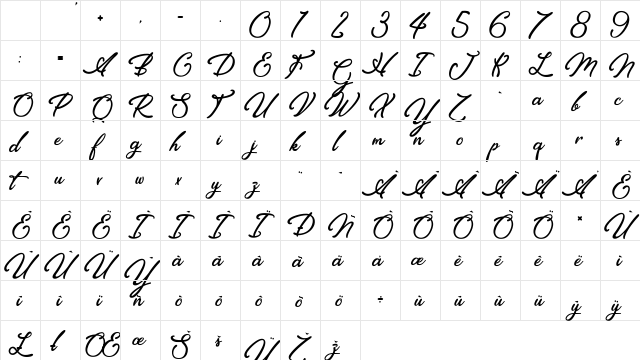
Complete Elegancia Romantica Regular glyph index. Displaying only characters natively supported by Elegancia Romantica Regular font.
Elegancia Romantica is a composed and adaptable typeface that performs quietly and consistently across a wide range of design contexts.
Who designed the Elegancia Romantica Regular font?
This font was published by Octotype. Check the technical specs section for copyright and designer details.